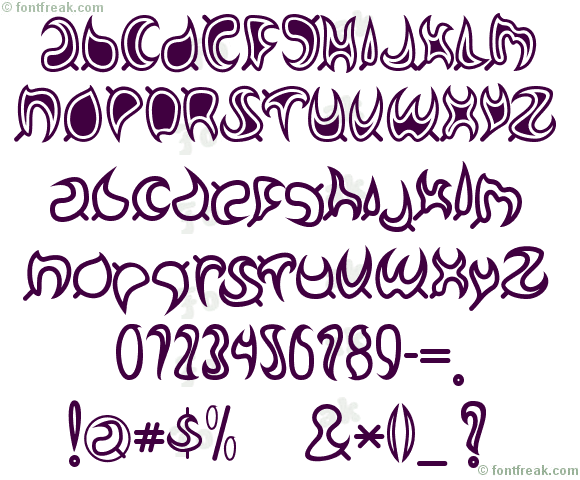
Matcha
Matcha, designed by Alberto Villanueva, is a captivating display font that embodies a playful yet sophisticated aesthetic. This freeware font features a unique blend of organic curves and whimsical forms, making it an excellent choice for projects that seek to evoke a sense of creativity and charm. The Matcha font showcases a medium stroke weight with a lively contrast, creating a visually engaging experience. The spacing is thoughtfully designed to maintain clarity while retaining a dynamic flow, allowing each character to stand out individually while still harmonizing as part of a cohesive whole.
The versatility of the Matcha font makes it suitable for a variety of use cases. It is particularly well-suited for wedding invitations, where its charming character can add a touch of elegance. Additionally, this font can enhance the visual appeal of restaurant menus, making them more inviting and memorable. For graphic designers working on movie posters or promotional materials, Matcha can infuse an artistic flair that captures attention. Finally, content creators can utilize this font in social media graphics or branding projects to convey a sense of uniqueness and creativity.
Targeting graphic designers, small business owners, and content creators, the Matcha font is a valuable asset for anyone looking to make a statement with their typography. Its distinctive style offers a fresh alternative to more conventional typefaces, providing an opportunity to stand out in a crowded visual landscape.
What truly sets the Matcha font apart is its ability to blend artistry with functionality. It invites creativity while remaining practical for various applications, making it a standout choice for those seeking a font that resonates with both style and purpose. For anyone interested in utilizing this unique typeface, a Matcha font free download is readily available to inspire new projects.